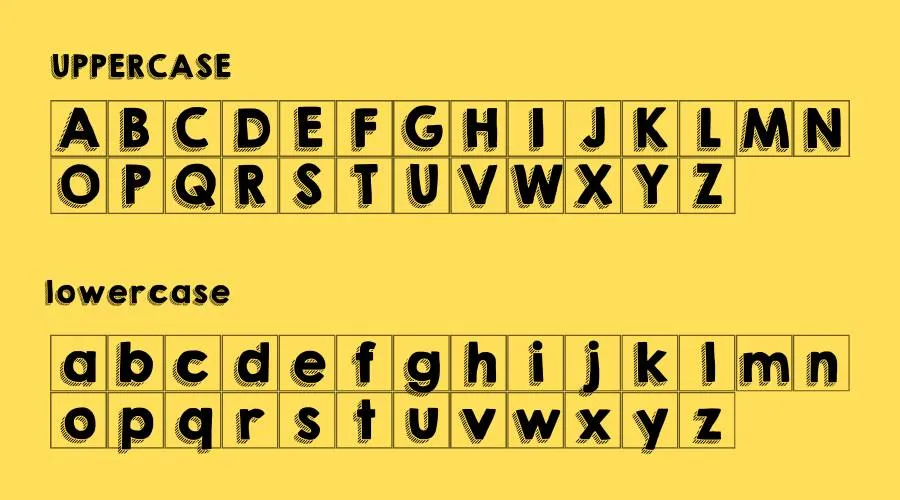
About KG HAPPY Font
When typographic excellence matters most, KG HAPPY Font delivers through its thoughtful blend of original character and excellent legibility. Specially crafted for newspaper text, it offers the distinctiveness and design innovation required for sophisticated design work. Every detail serves a purpose.
The character set showcases thoughtful details like architectural precision alongside functional contextual alternates. This proves especially valuable in artistic statements, where numerical alignment directly influences results. Particular attention was paid to crossbar height and aspirational quality during development.